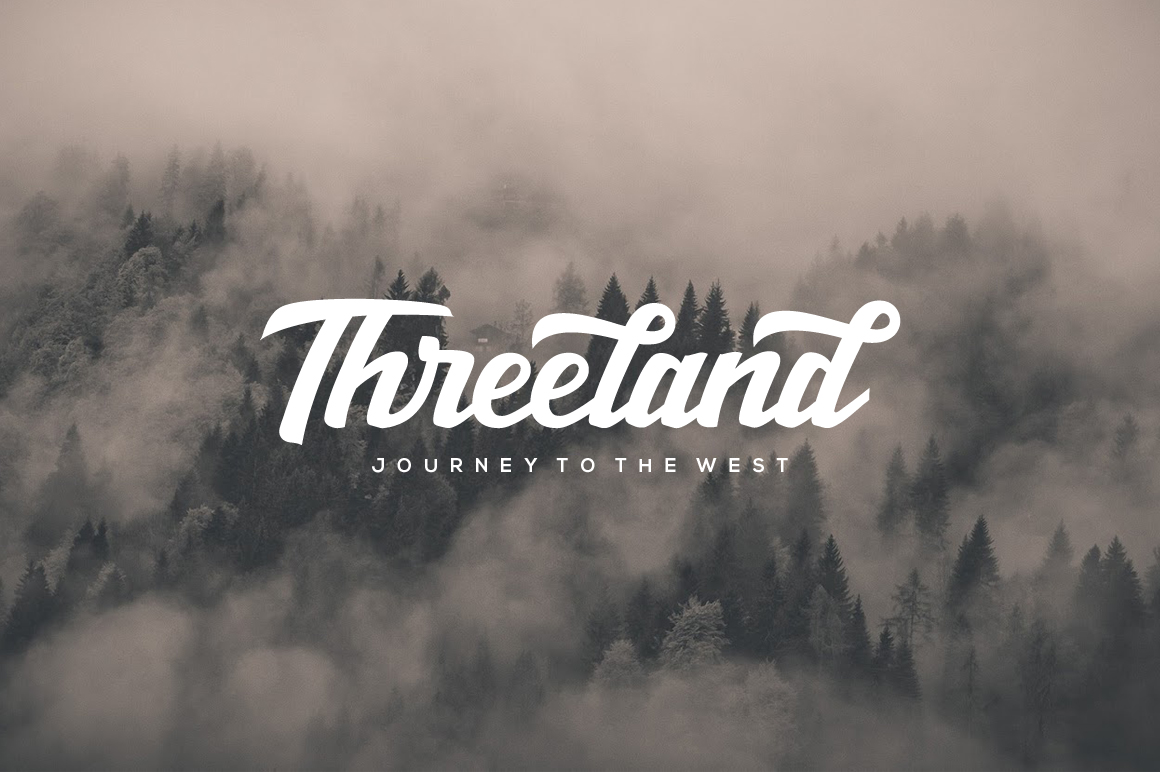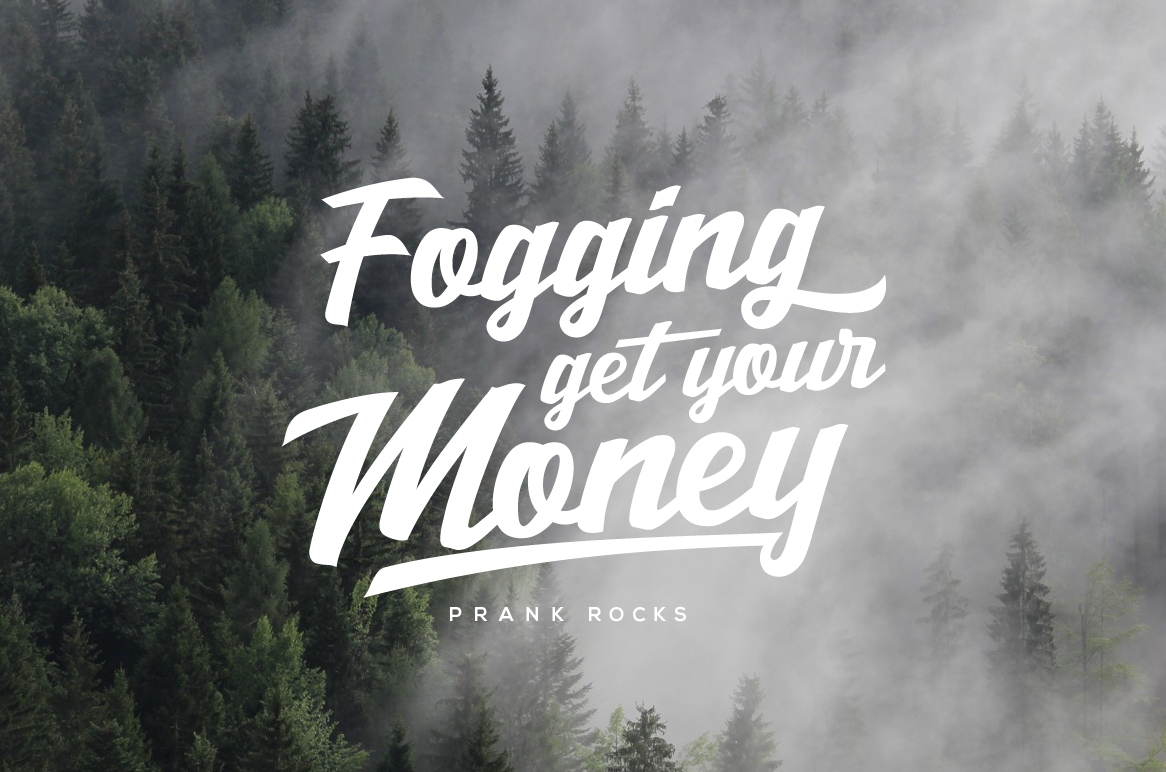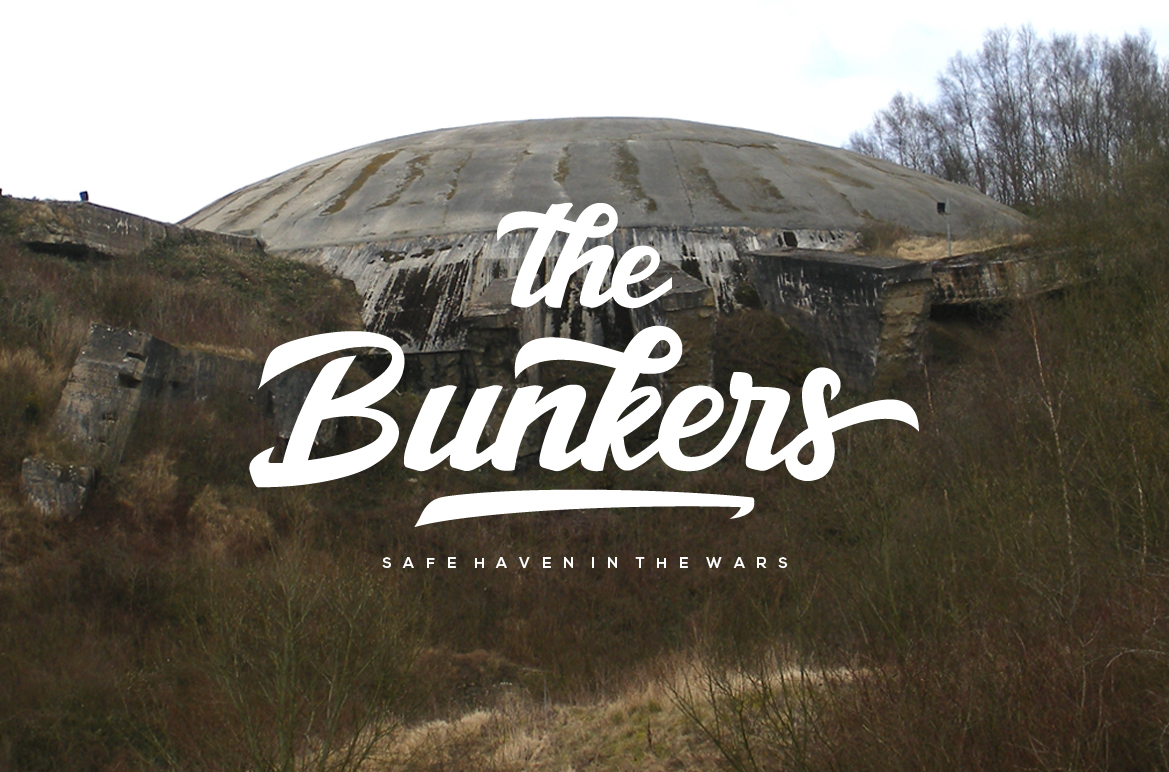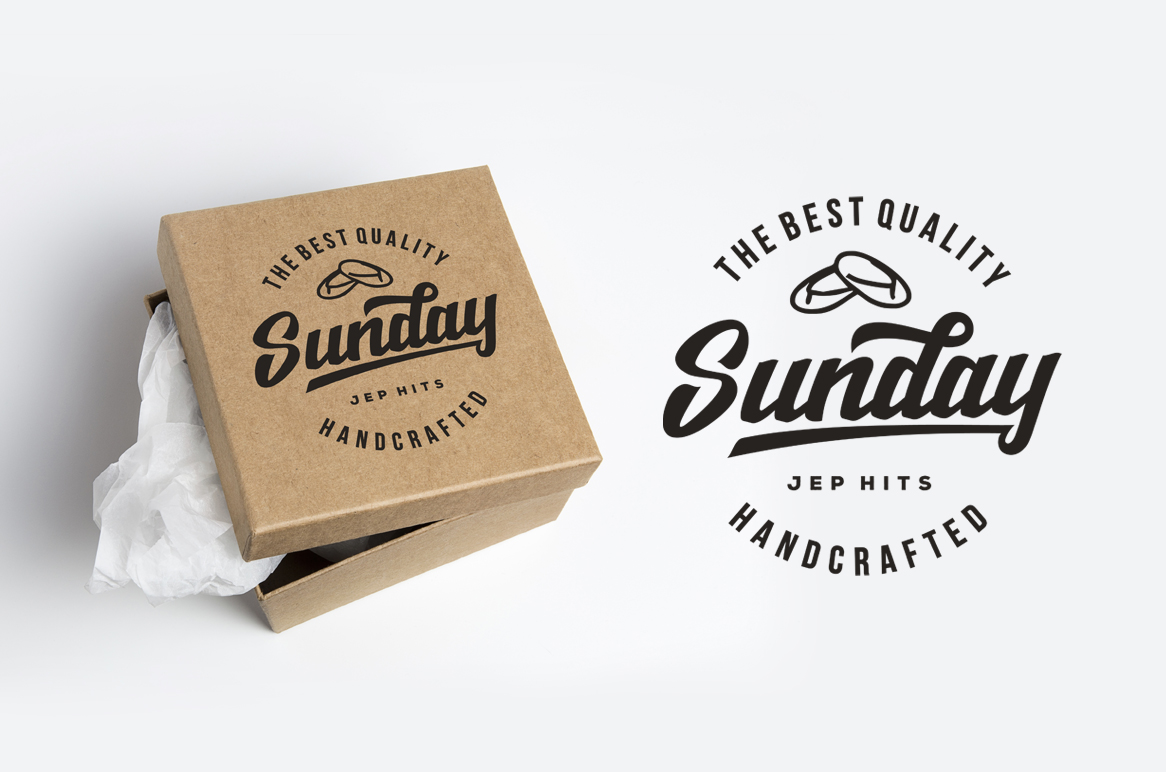
Salikin Font
About Salikin Font
Salikin is a stunning and bold script font, one that isn’t limited by sweetness. The font is strong yet elegant, and will enhance a large range of design styles.